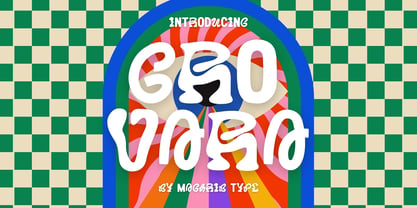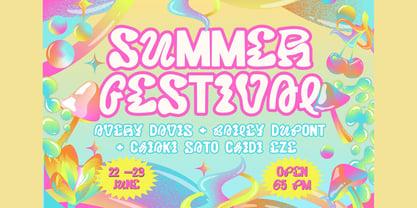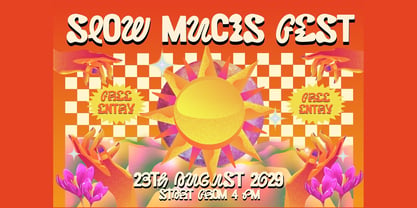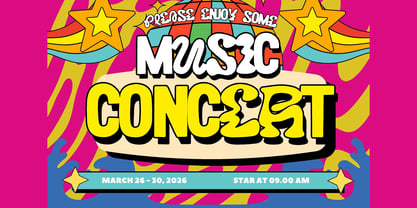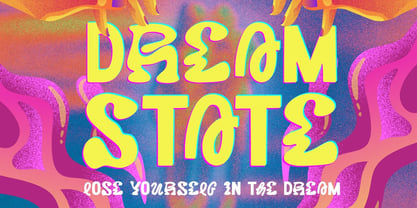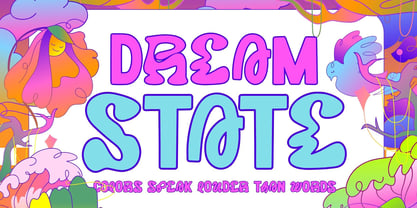
Grovara
by Maghrib Type
The Grovara Font Family was designed by Rizky Setyaludin and published by Maghrib Type. Grovara contains 1 styles. More about this family
Grovara is a bold and expressive display font inspired by the vibrant energy of music, retro grooves, and psychedelic visuals. With its fluid, wavy letterforms and playful curves, Grovara captures the spirit of sound in motion—like rhythm you can see and feel. Designed to stand out, Grovara blends funky 70s aesthetics with a modern twist, making it perfect for eye-catching designs that need personality and impact. Each character is crafted with a unique, organic flow, giving your typography a lively and dynamic voice. Whether you're creating music posters, festival branding, album covers, or bold social media graphics, Grovara delivers a fun, energetic vibe that instantly grabs attention. Let your designs dance to the rhythm with Grovara.